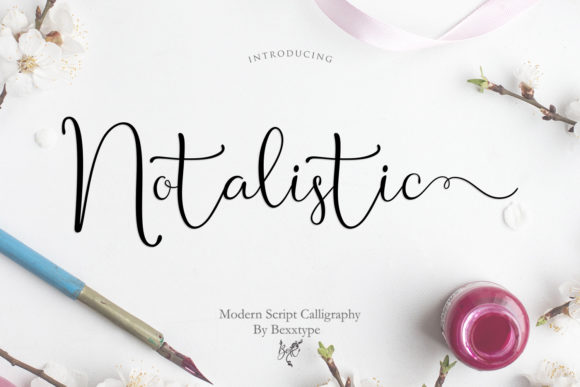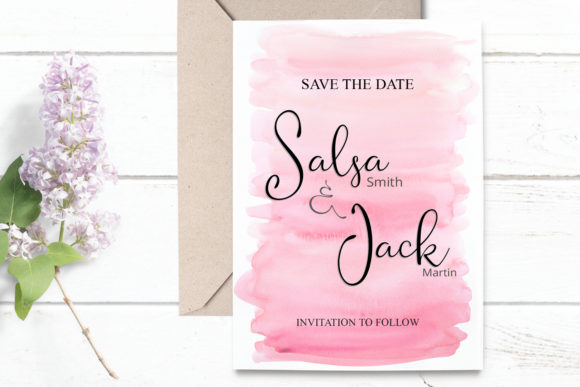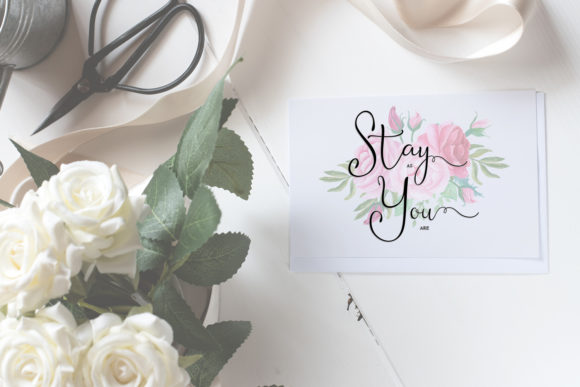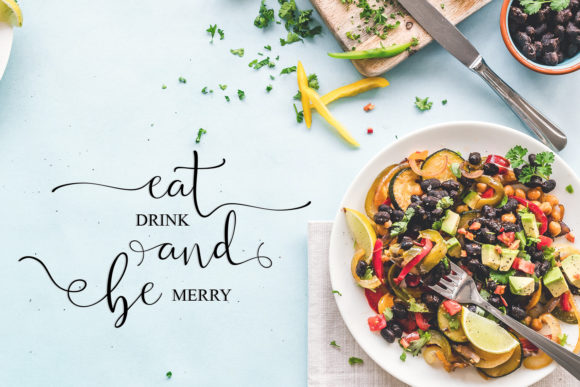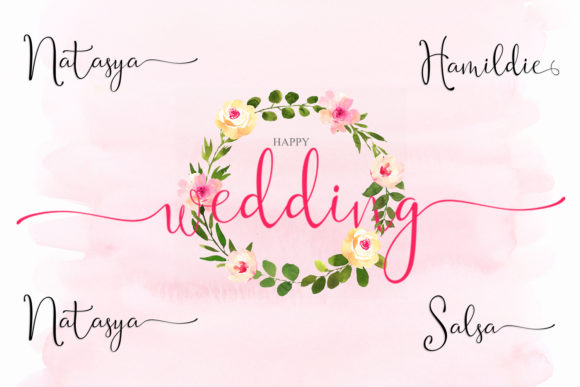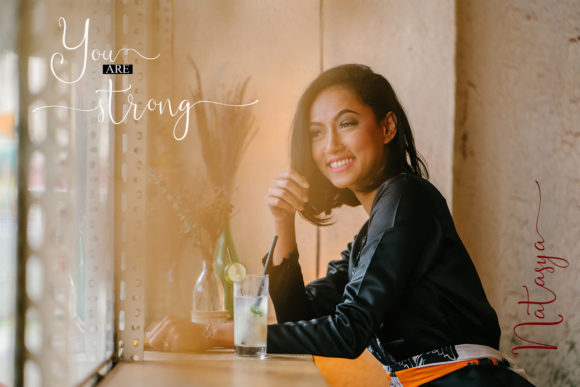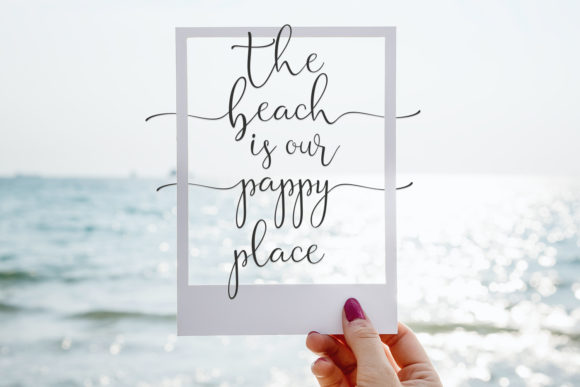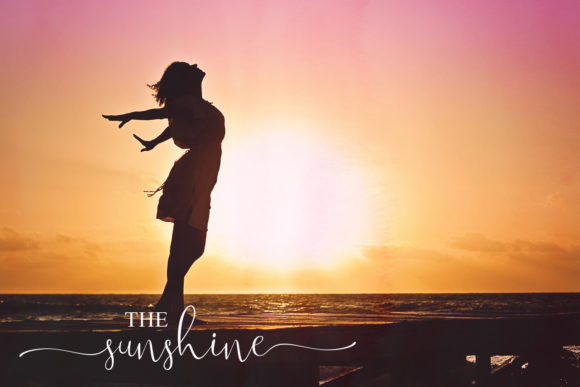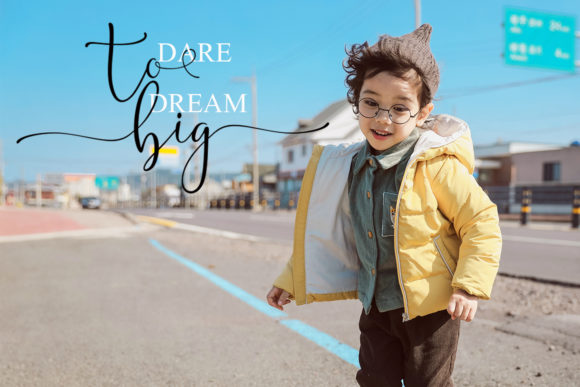
Notalistic Font
About Notalistic Font
Notalistic is a beautiful and organic script with smooth lettering and a natural flow. Get inspired by its romantic authenticity!